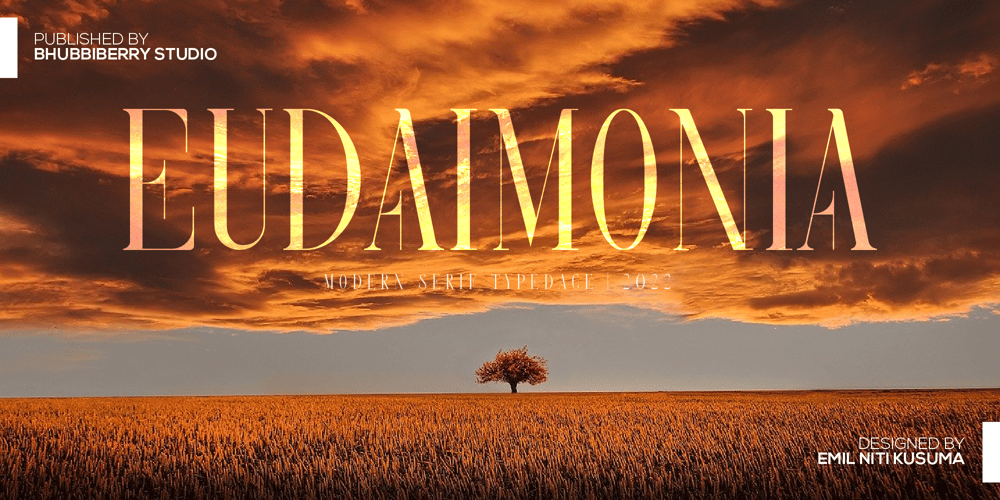
Eudaimonia
Eudaimonia font
Eudaimonia Font Family was designed by Emil Niti Kusuma and published by Bhubbiberry Studio. Eudaimonia contains 1 styles and family package options. Eudaimonia is an luxurious classic serif font with a vintage chic look. These fonts are designed to pair aesthetic, elegeant, and lend themselves to high end branding, logo designs, product packaging & invitation designs.Language Support; Both fonts support English, French, Italian, Spanish, Portuguese, German, Swedish, Norwegian, Danish, Dutch, Finnish, Indonesian, Malay, Hungarian, Polish, Turkish, Slovenian.